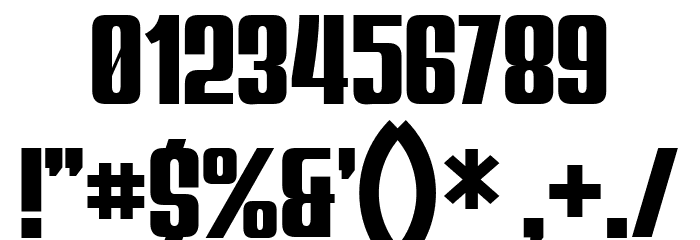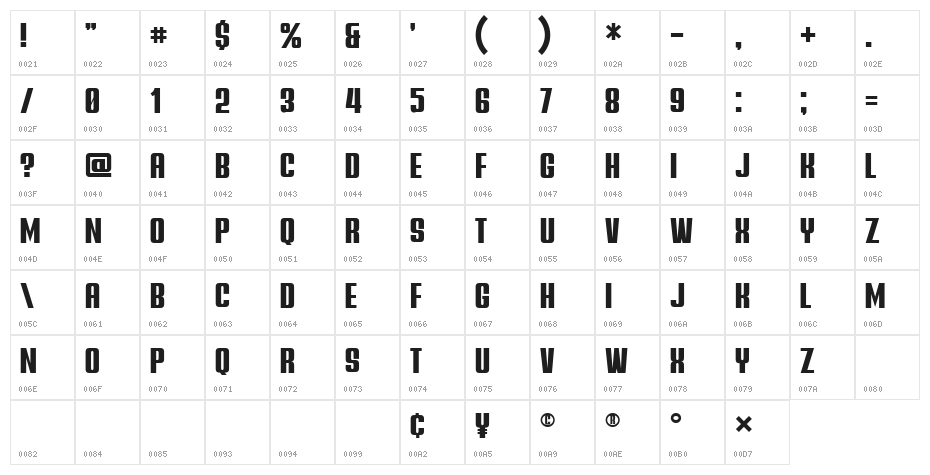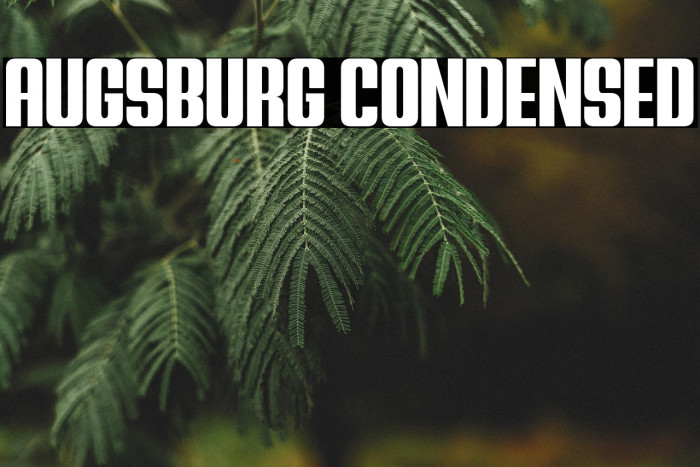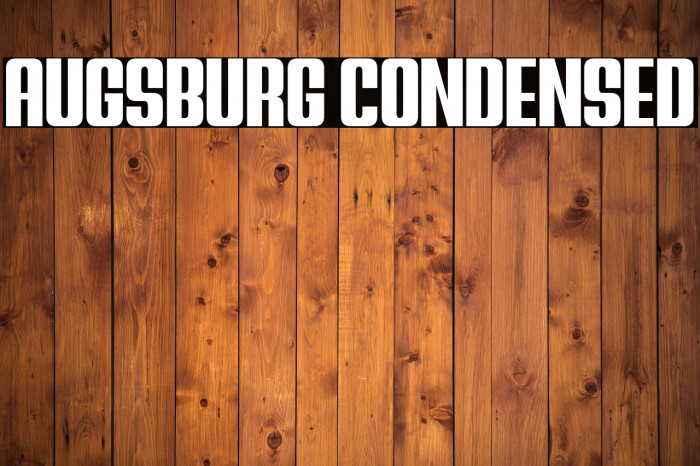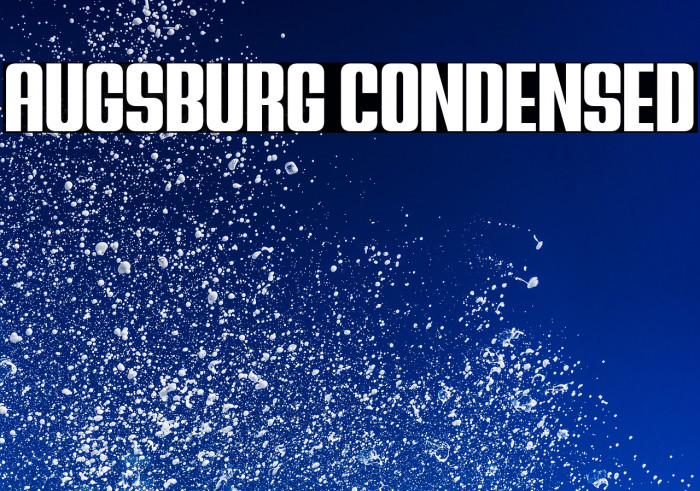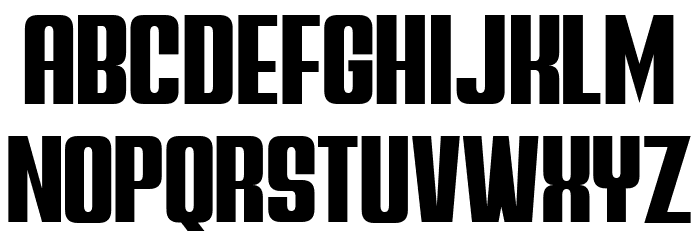
Augsburg Condensed Font
Augsburg Condensed Description
This font features a bold and striking design, characterized by its condensed letterforms and strong presence. The uppercase letters are uniform in height, with a consistent stroke width that gives a robust and impactful appearance. The numerals and special characters maintain the same boldness, ensuring a cohesive look across all text elements. The overall style is modern and assertive, making it ideal for attention-grabbing headlines and titles. Its condensed nature allows for efficient use of space, making it suitable for layouts where space is at a premium.
| Proposed Projects | Ideal for posters, headlines, branding, and any project requiring a strong visual impact. |